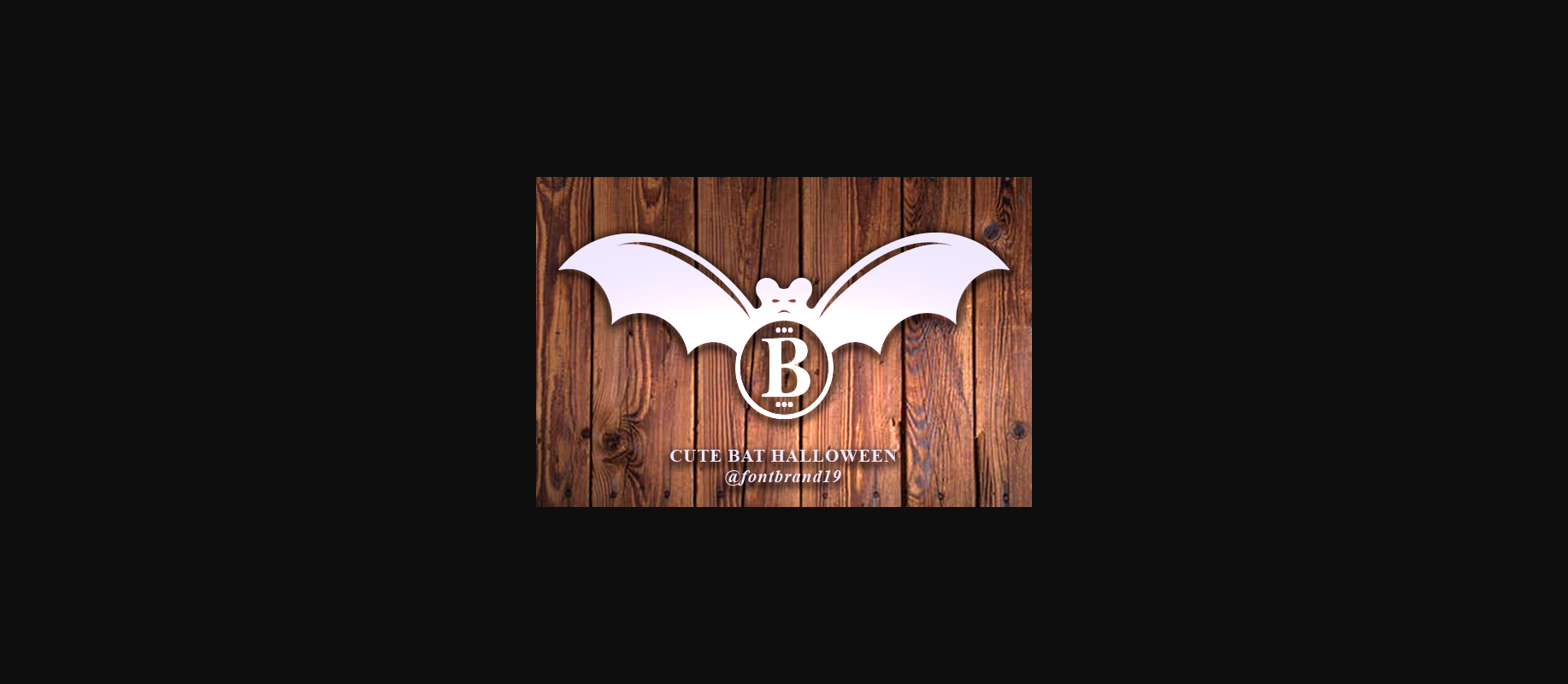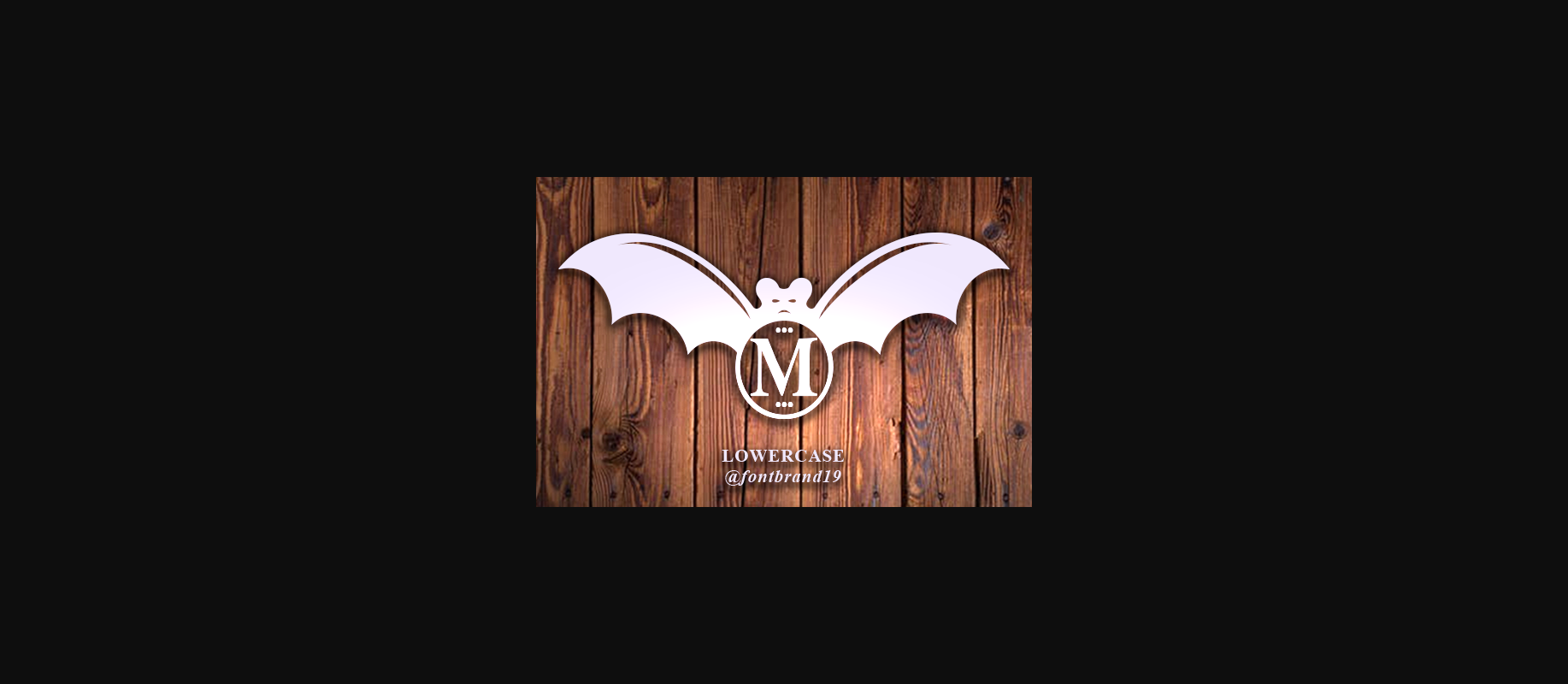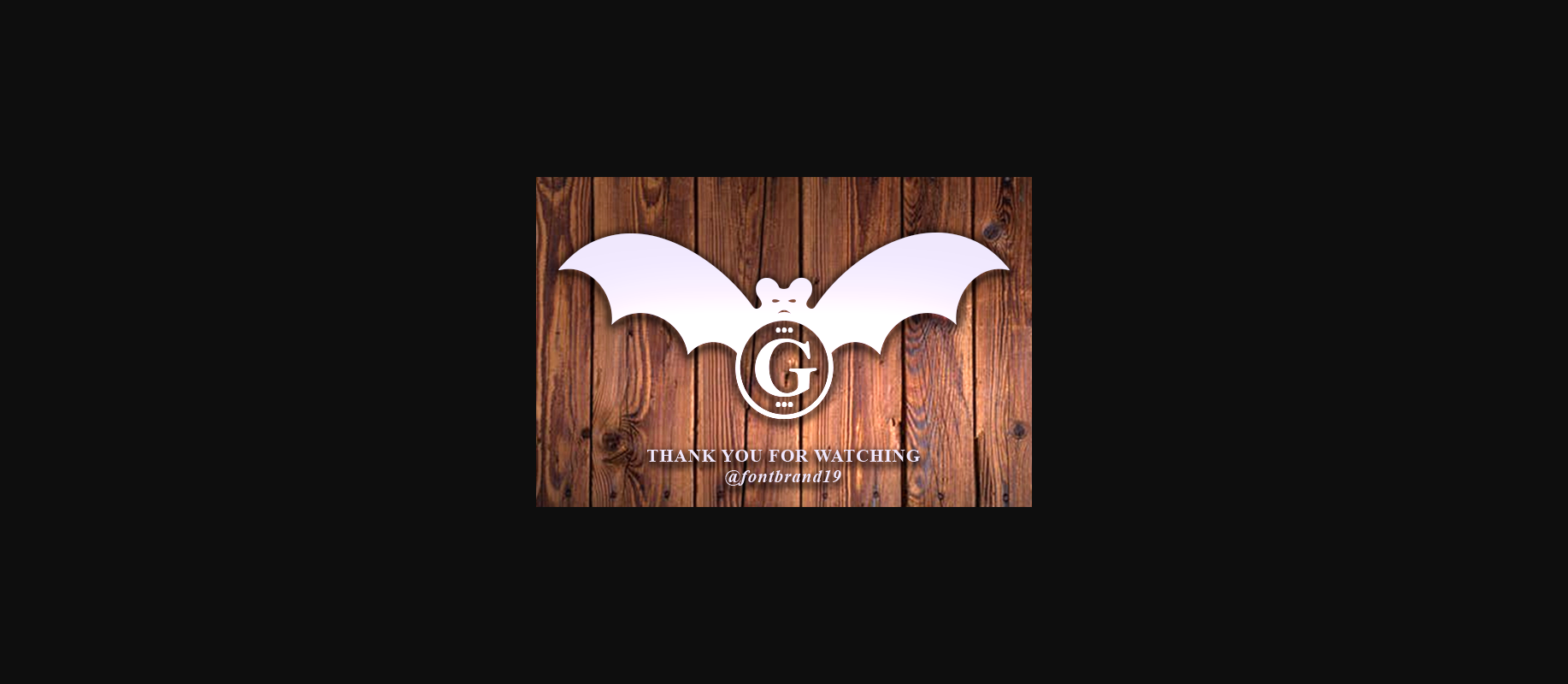
Cute Bat Halloween Font
About Cute Bat Halloween Font
Cute Bat Halloween Monogram is an incredibly unique and spooky decorative font. Add it to each of your Halloween designs and make them stand out!